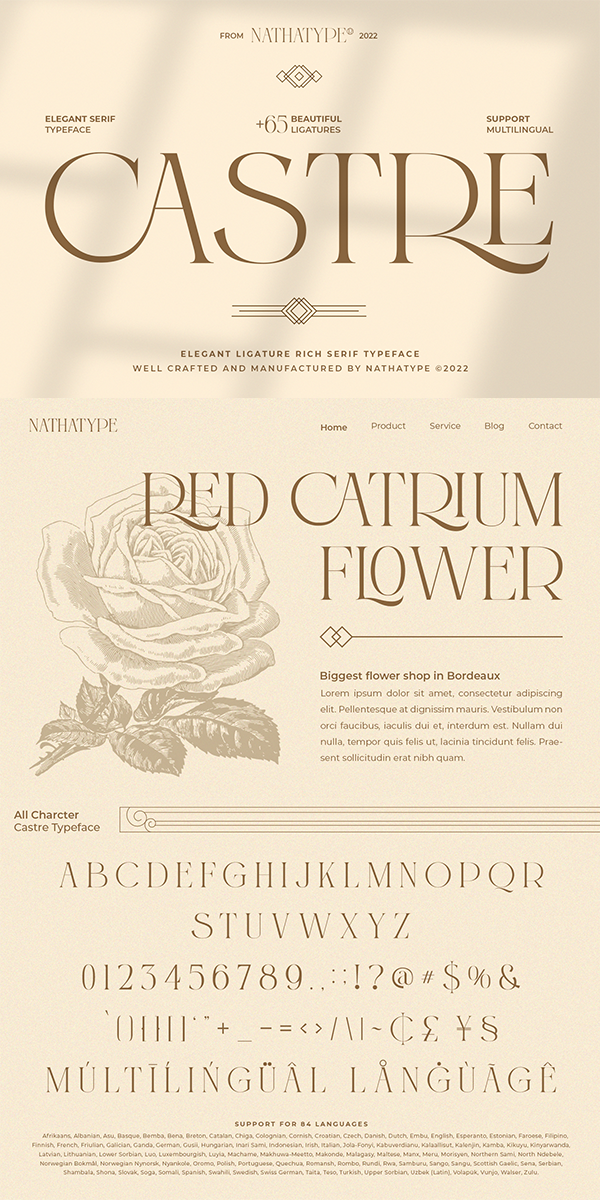
CASTRE Font
About CASTRE
Be a trendsetter and stand out with bold and sophisticated style font. The epic Castre.
This serif font is designed to be simple and easy to read without losing the modern feels. The uppercases design is paired with thin lines allow us to dive more into the world of modernity. Slay your design with Castre’s best features so you’ll look your best on what ever your design is, all the time.
-It is perfect to be used for invitation, logos, heading, cover, poster, quotes, header, merchandise, social media & greeting cards, etc. For more inspiration about how to use it, you can see the preview.